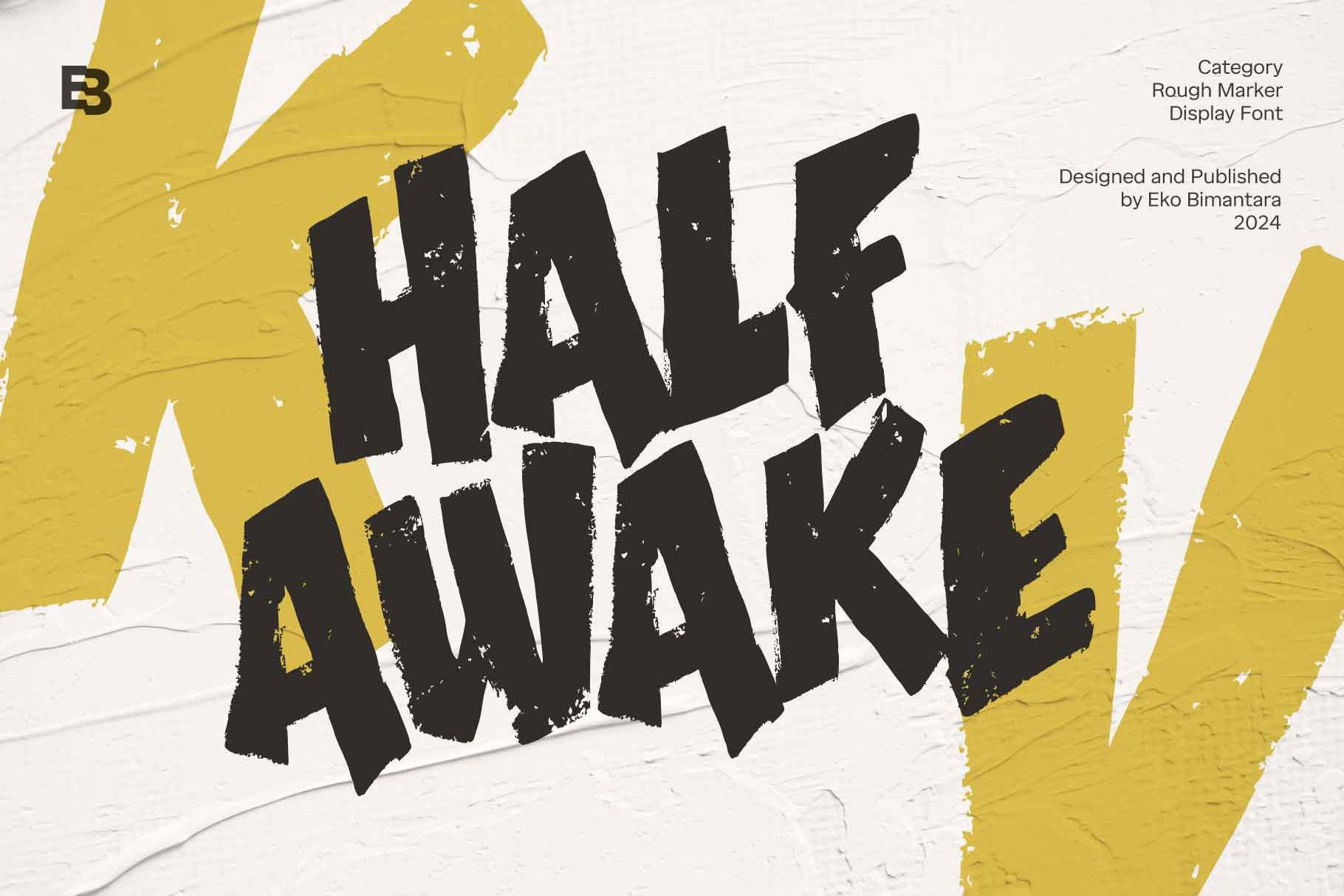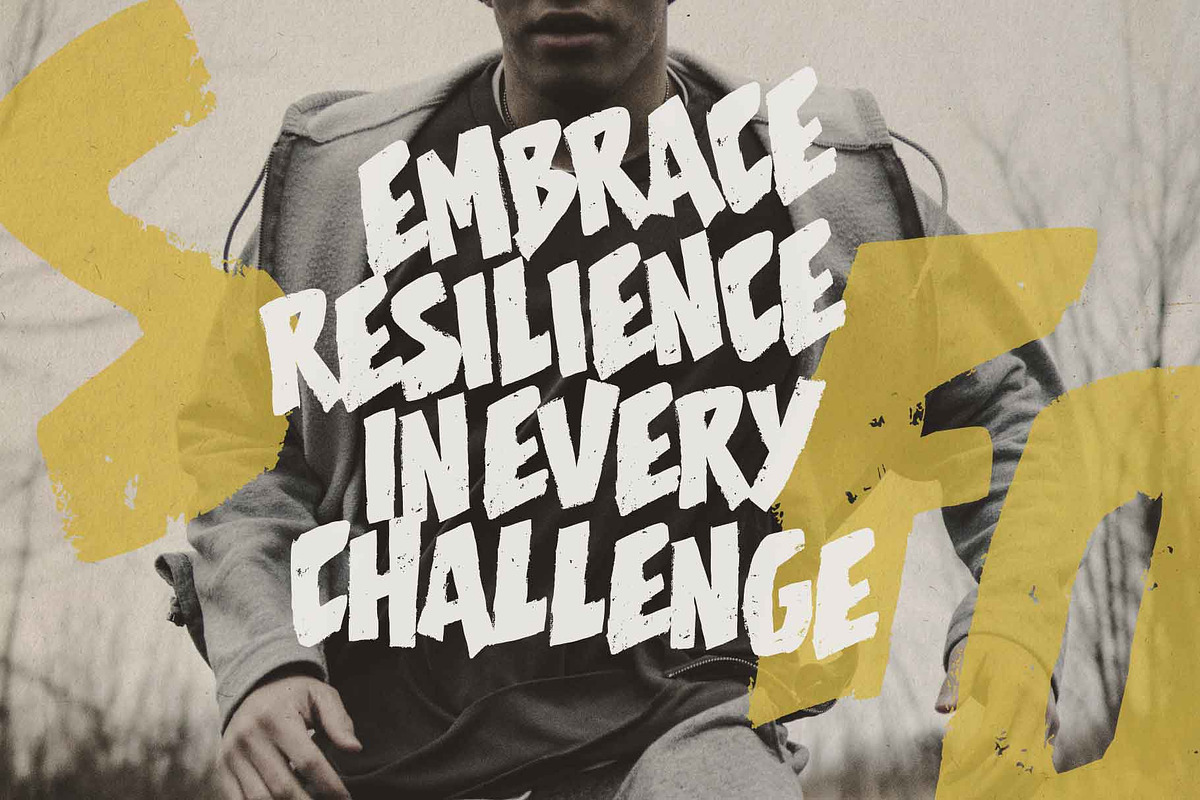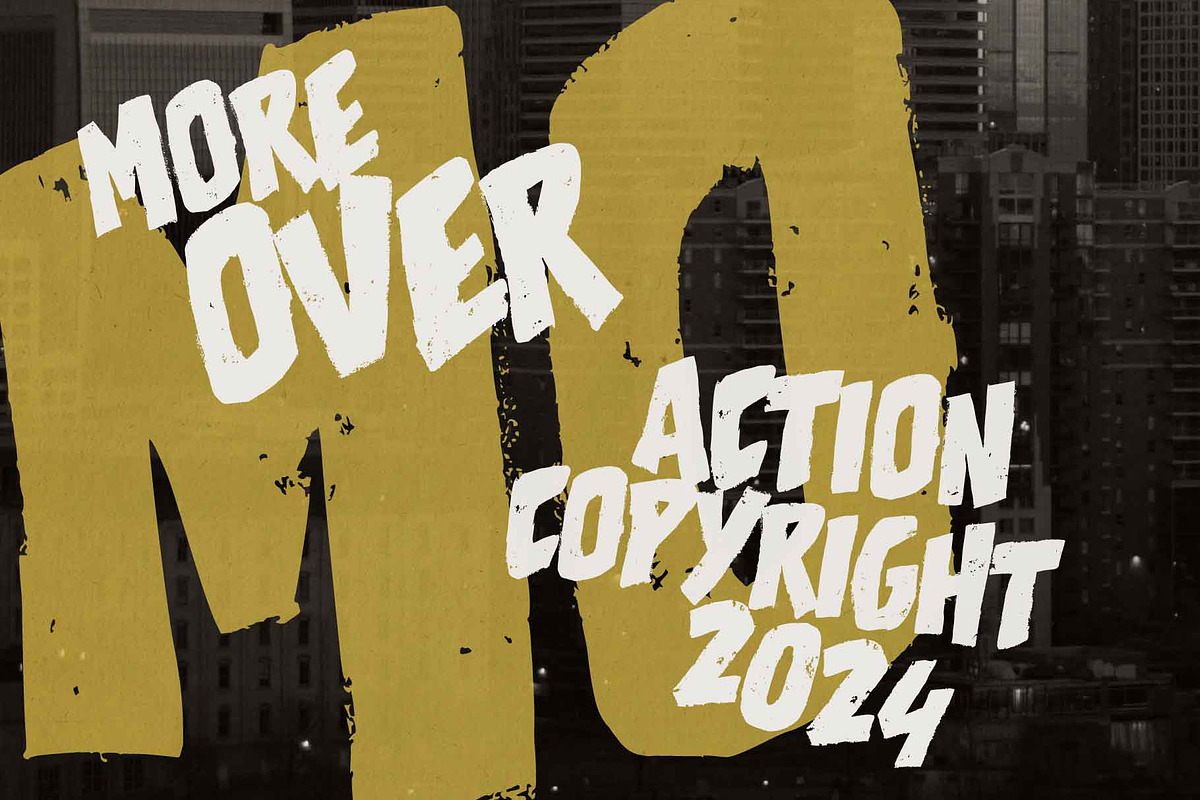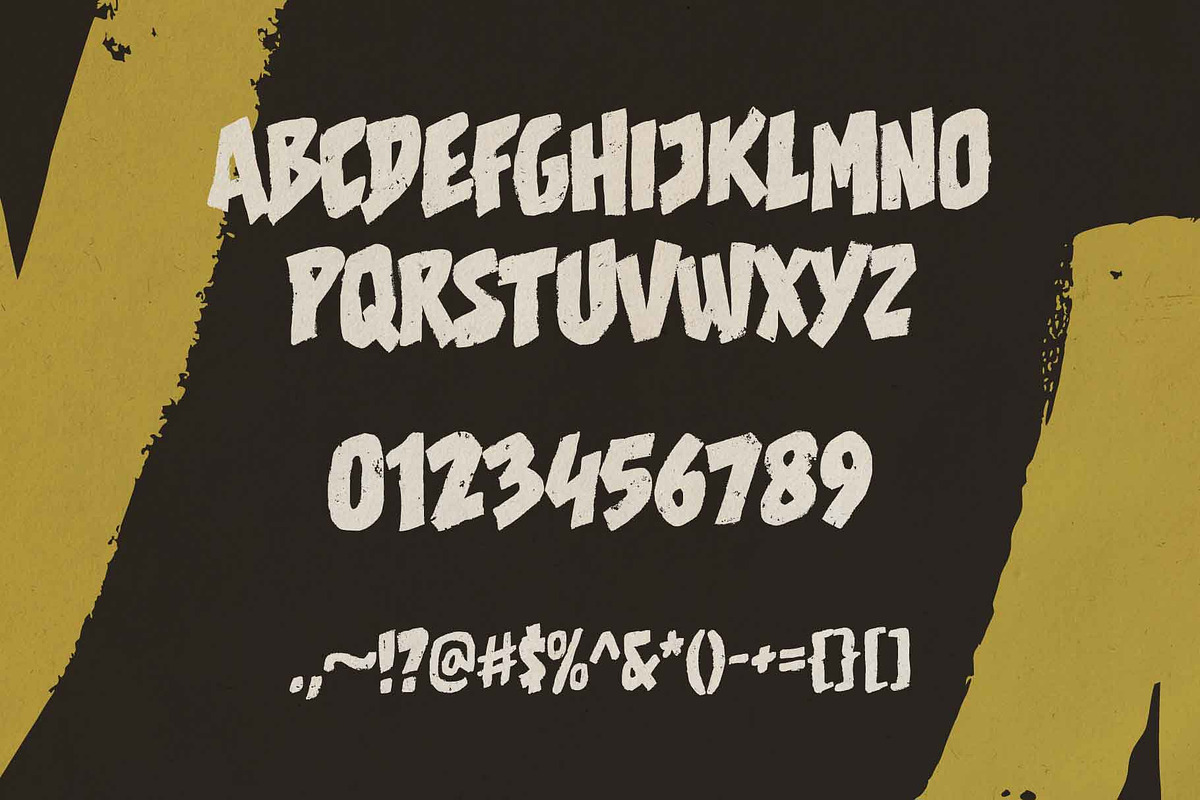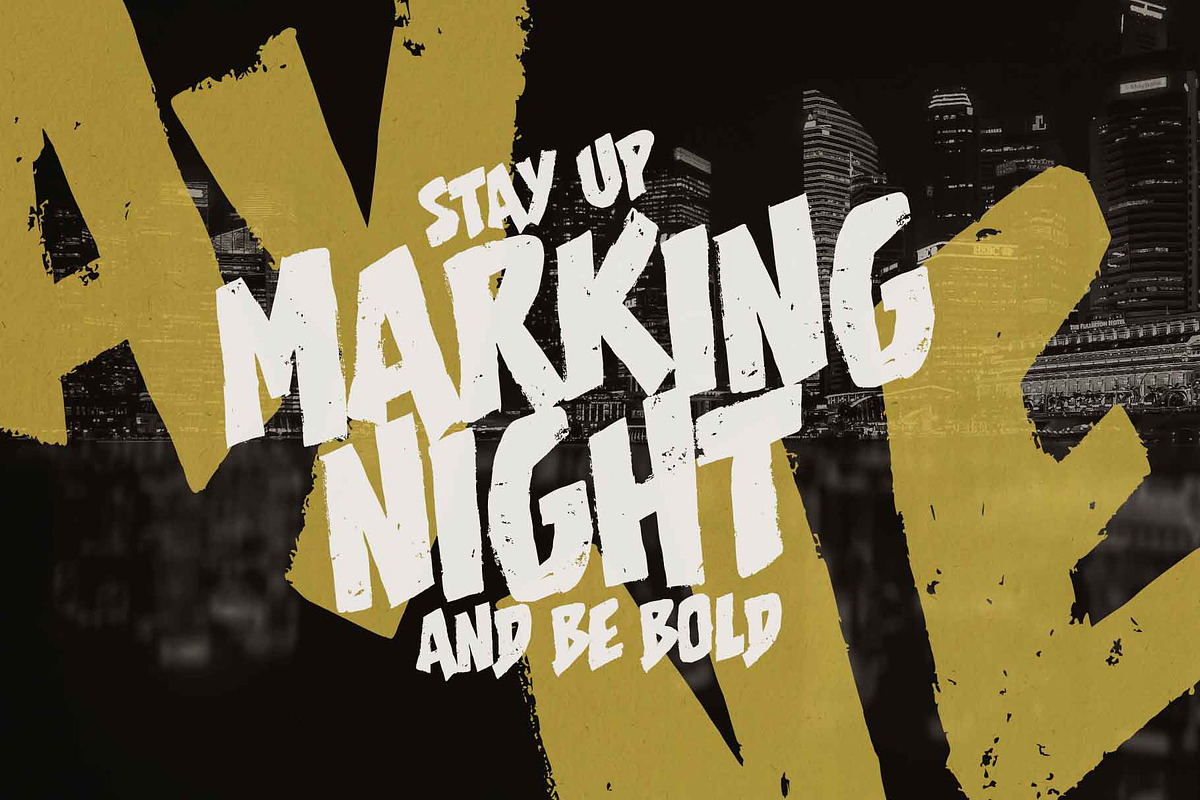
Half Awake; Rough Display Font
Half Awake is a bold, all-caps rough marker display font with a raw and textured feel. Its rugged, hand-drawn style makes it a perfect fit for branding with a rustic or edgy theme, as well as titles and product designs that need to stand out. Ideal for large-size displays, headers, and titles, it works well across a range of creative applications such as websites, brand identities, product packaging, and various graphic design projects that require a strong, bold aesthetic.